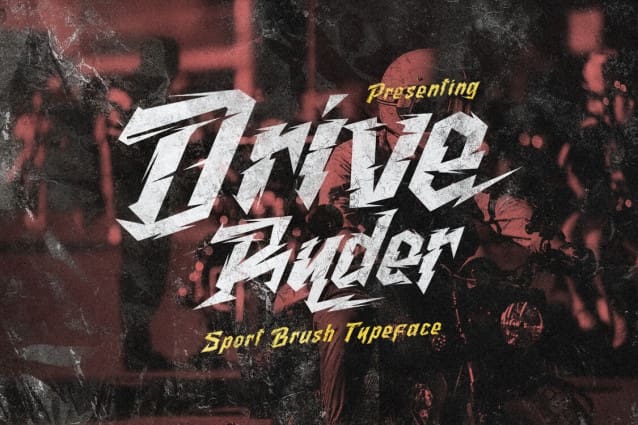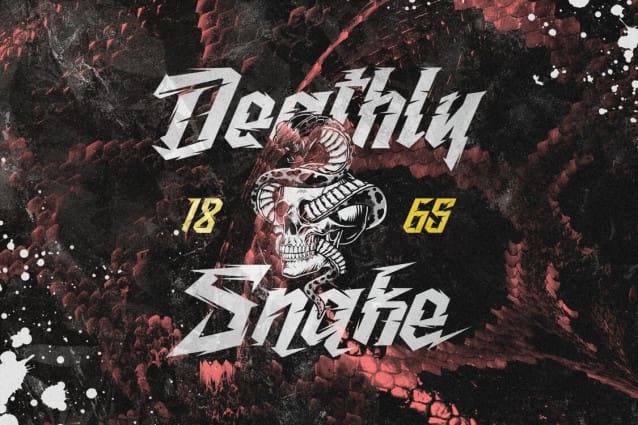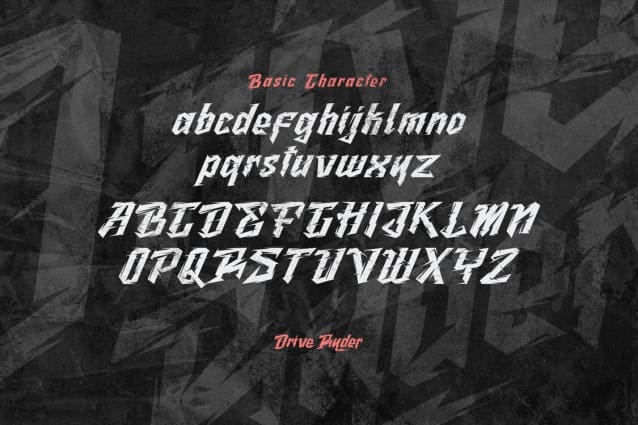
Drive Ryder Font
Drive Ryder Font a new product coming to the attention of designers and typography enthusiasts. This bold and powerful font with a sense of speed is perfect for creating sports racing themed designs. It can be used to create logo designs, car stickers, racing event titles and so on with a sports race theme as well as various design projects, from branding to packaging and printed materials.
Drive Ryder font is perfect for horror themes, tattoos, shirt designs, sword action, action game covers, logos & branding, product designs, labels, and so on.